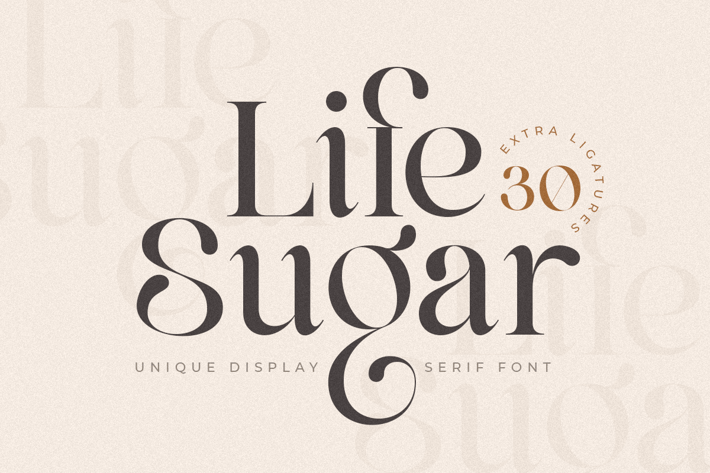
Life Sugar - Unique Luxury Serif Font
Life Sugar is Unique Luxury Modern Serif Font is a well-balanced contemporary font with a fancy, unique, and versatile Luxury serif, font that you can combine to get any variations and unique shapes easily just in seconds with choose alternates of them. It is a serif display font with moderate contrast that perfect for branding projects, logo, wedding designs, social media posts, advertisements, product packaging, product designs, label, photography, watermark, invitation, stationery, and any projects, it makes with a high level of legibility.
Regular and Italic Version